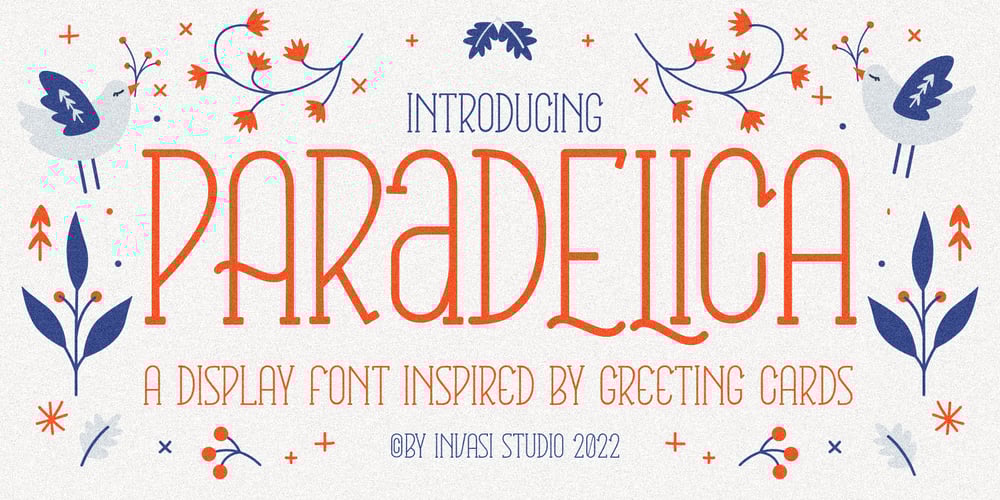
Paradelica
Paradelica font
Paradelica Font Family was designed by Gha Arizal and published by Invasi Studio. Paradelica contains 1 styles and family package options. It is the holiday season, so let’s get a bit fancy. So, we present the Paradelica Display font with a playful and elegant design. A festive and stylish font with a vintage vibe, this is perfect for creating display pieces like logos, posters, and greeting cards. Available in Caps only. Comes with alternates, ligatures, multi-language support, and optional decorative symbols.